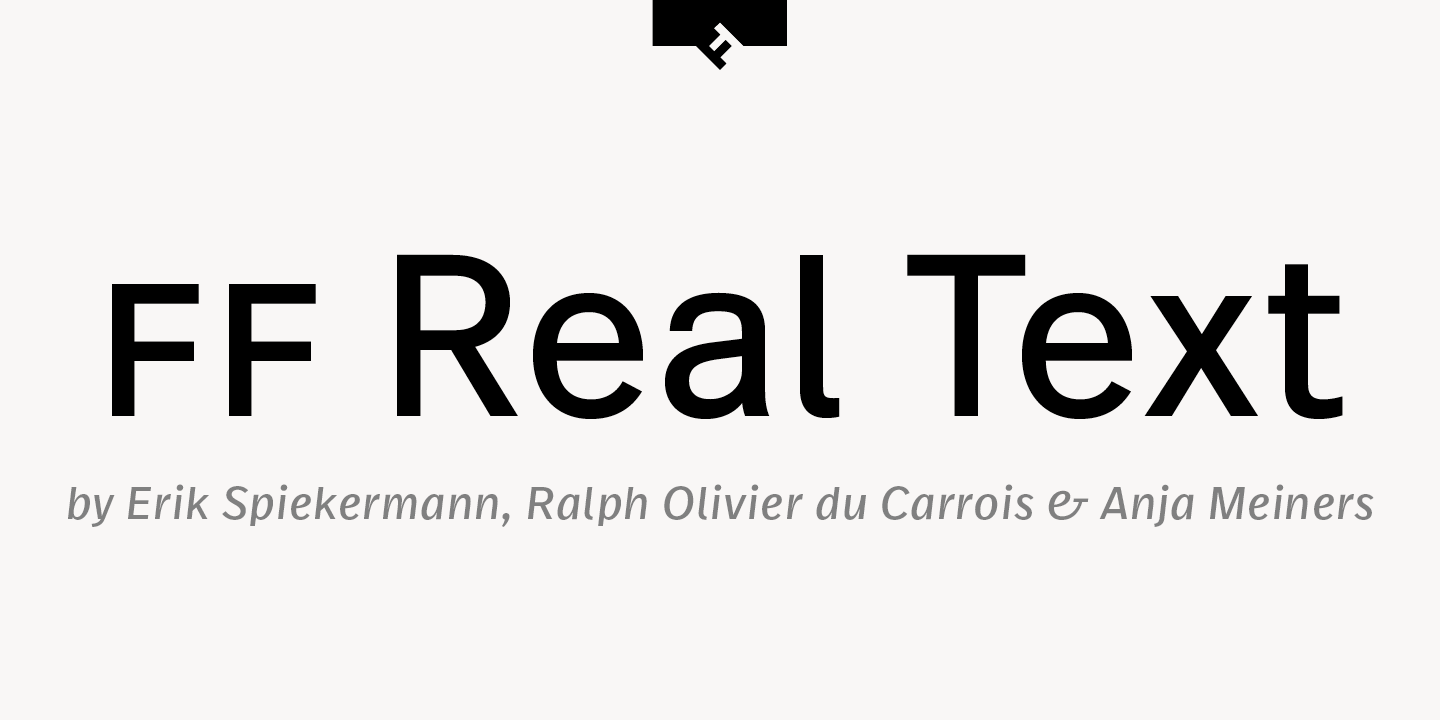
FF Real Text Font is a meticulously crafted and highly versatile typeface, specifically designed for exceptional readability in extended text, particularly at small sizes, across both print and digital media. With its balanced proportions, open forms, and optimized spacing, it's an excellent choice for book publishing, academic journals, corporate reports, and extensive web content. Imagine it providing effortless reading for a literary novel, ensuring crystal-clear comprehension in a scientific research paper, or delivering crisp, professional text for an online encyclopedia. This font is also superb for legal documents, newsletters, and any project where sustained legibility, professionalism, and typographic harmony are paramount. It doesn't just display text; it enhances the reading experience, making complex information accessible and inviting.
What Makes FF Real Text Font So Exciting?
What makes FF Real Text Font so exciting is its intelligent design, which prioritizes performance in continuous reading environments. It features a robust structure that holds up well at small sizes, combined with subtle humanistic touches that make it feel inviting and less sterile than some purely geometric text faces. This meticulous attention to detail ensures that the reader's eye flows smoothly, reducing fatigue, whether on paper or screen. Its ability to maintain clarity across diverse applications and its comprehensive language support make it a truly versatile workhorse. It’s a font that speaks with a clear, authoritative voice, making it ideal for brands and content creators who want to convey trustworthiness, expertise, and a sophisticated, user-friendly aesthetic across all their communication channels.
Usage Examples for FF Real Text Font
FF Real Text Font excels in environments where large blocks of text need to be read comfortably. Consider its application in:
• Corporate Documents: Annual reports, proposals, and internal communications where clarity and professionalism are key.
• Educational Publishing: Textbooks, academic papers, and e-learning platforms for sustained reading.
• Newspapers and Magazines: Body text for articles, ensuring optimal readability in dense layouts.
• Web and UI Design: Long-form blog posts, articles, e-commerce product descriptions, and user interface elements.
• Legal and Financial Texts: Contracts, reports, and disclosures where precision and legibility are critical.
FF Real Text Font Family and Weights
The FF Real Text Font family is comprehensive, offering a wide range of weights and styles to provide extensive design flexibility and allow for nuanced typographic expressions. You can generally expect to find key members that support diverse layout needs, such as:
• FF Real Text Thin
• FF Real Text Light
• FF Real Text Regular
• FF Real Text Medium
• FF Real Text Bold
• FF Real Text Heavy
• FF Real Text Black
• FF Real Text Italic (for most, if not all, weights)
• FF Real Text Small Caps (often included for traditional typographic styling)
• FF Real Text Figures (various numeral styles like lining, oldstyle, tabular)
These various weights and styles, combined with features like ligatures and comprehensive character sets, empower designers to create effective visual hierarchies, emphasize important information, and maintain a consistent, polished, and highly readable look throughout all digital and print assets. The opportunity to utilize FF Real Text Font Free Download is an excellent way to experience its versatile elegance and exceptional legibility for your personal projects.